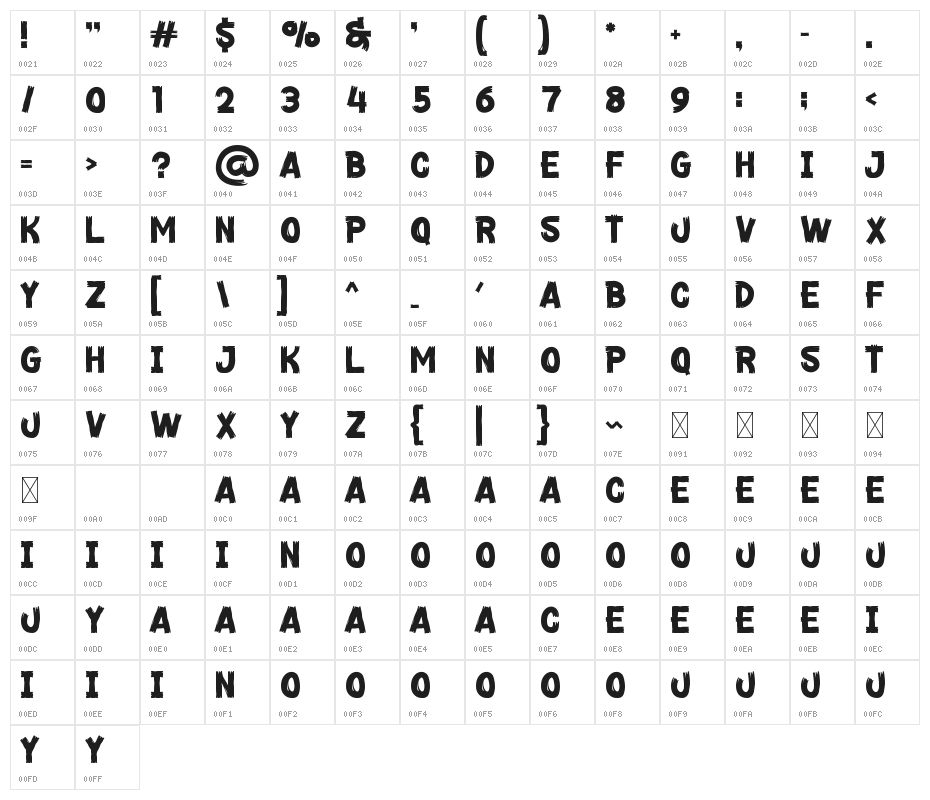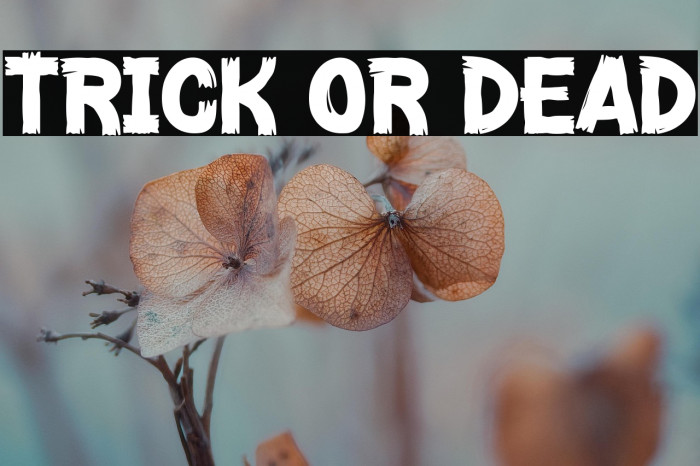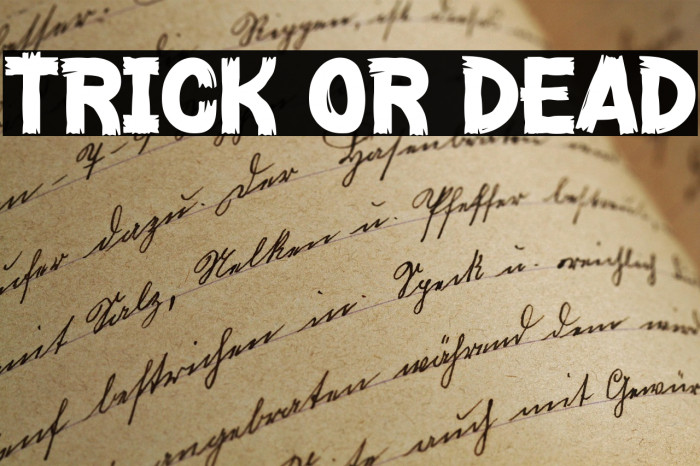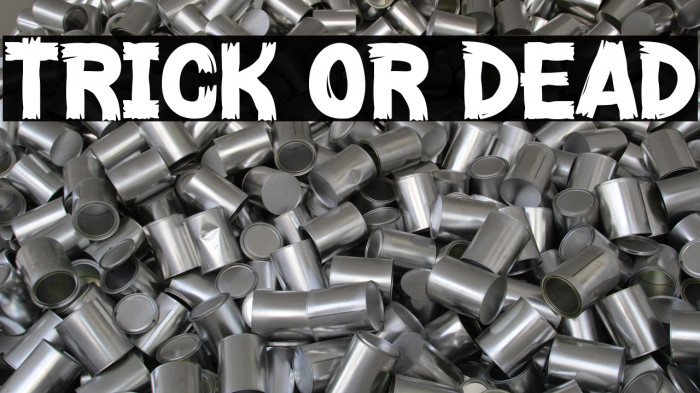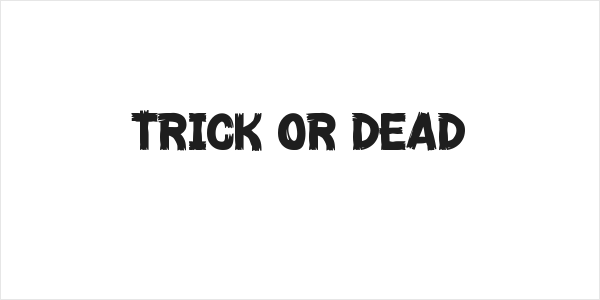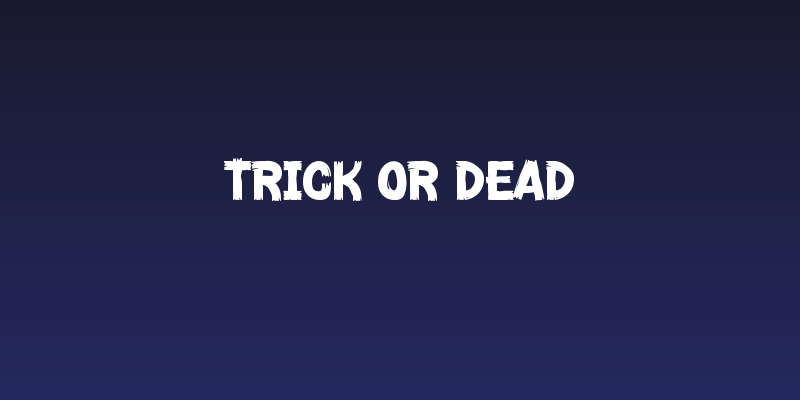
Trick Or Dead Font
Trick Or Dead Description
This font features a bold and jagged style, reminiscent of horror or Halloween themes. The characters have a rough, uneven edge that gives them a distressed and spooky appearance. The uppercase and lowercase letters maintain a consistent style, with exaggerated serifs and sharp angles that enhance the eerie aesthetic. Numbers and special characters follow the same design, ensuring a cohesive look across all text elements. The font's unique style makes it ideal for projects that require a dramatic and eye-catching typeface.
| Use Case | Headlines, Posters, Event Invitations |
| Proposed Projects | Ideal for Halloween-themed posters, horror movie titles, spooky event invitations, and themed merchandise. |